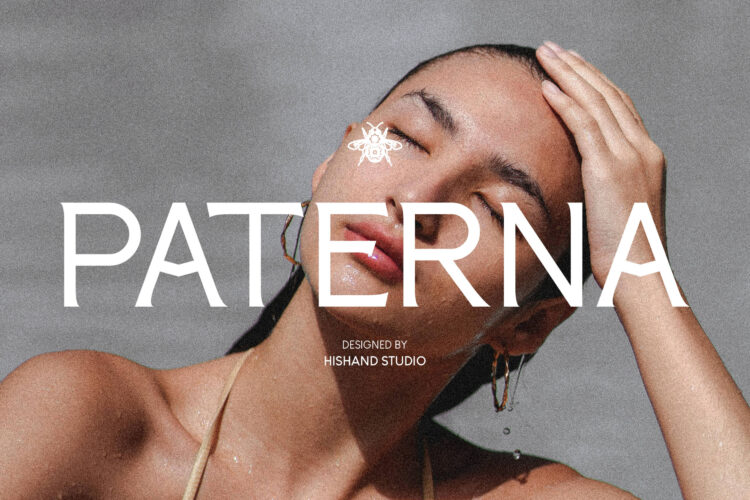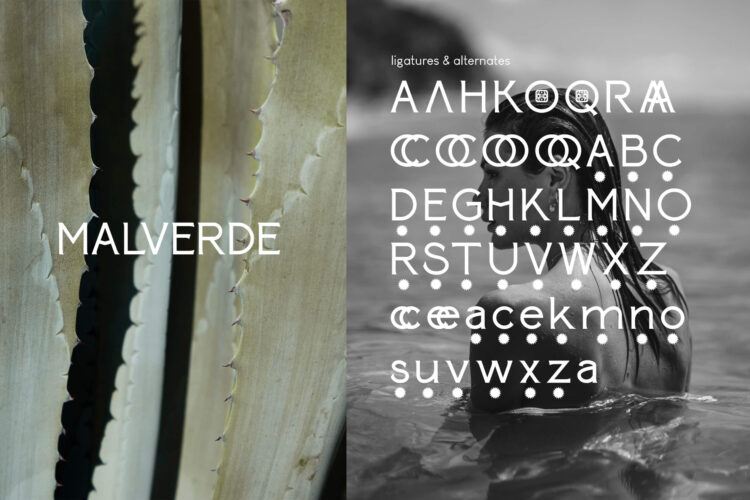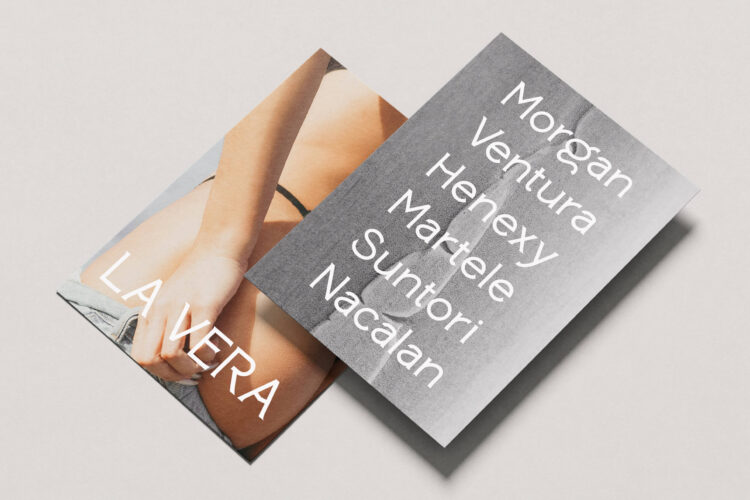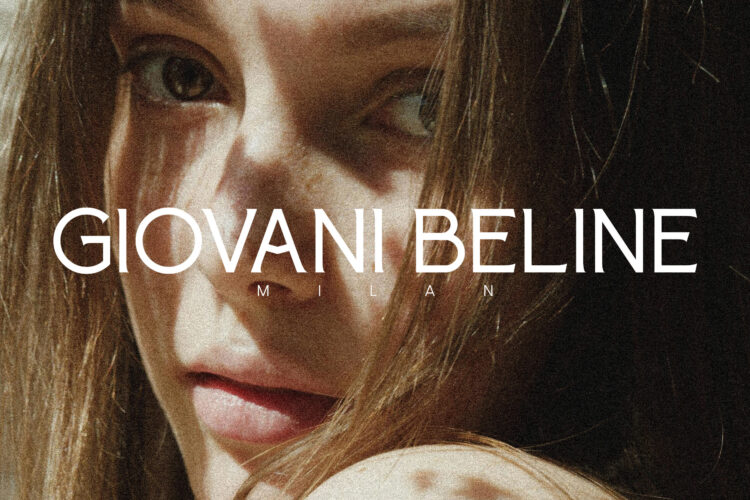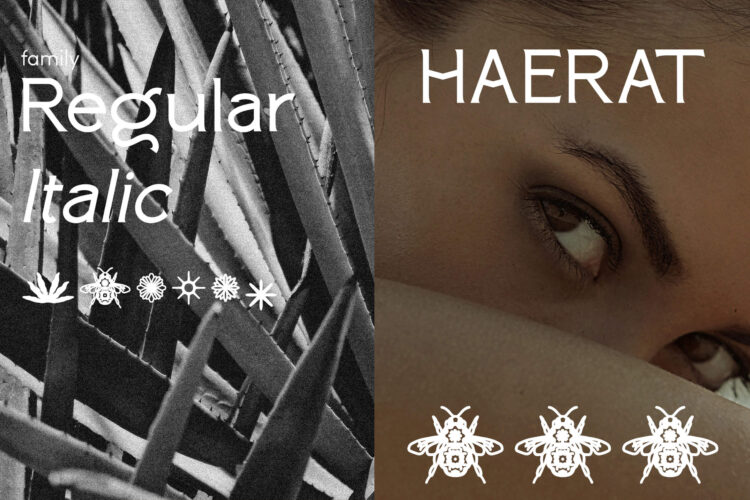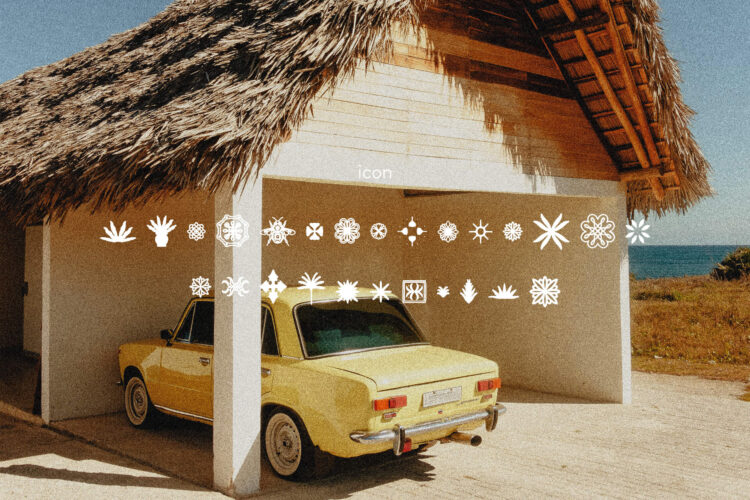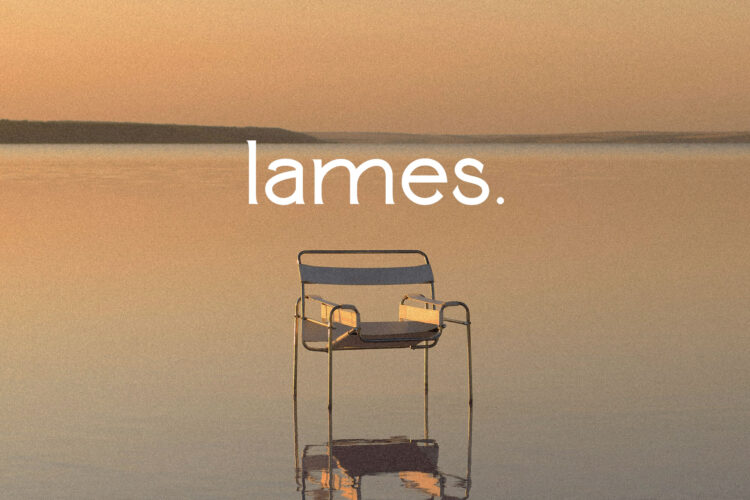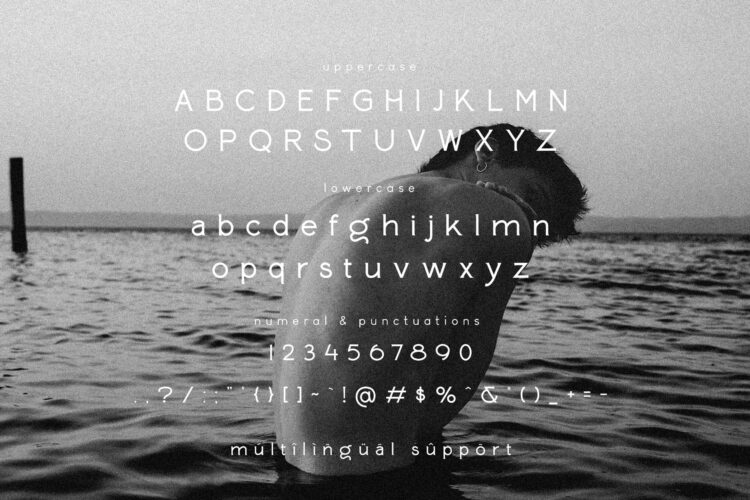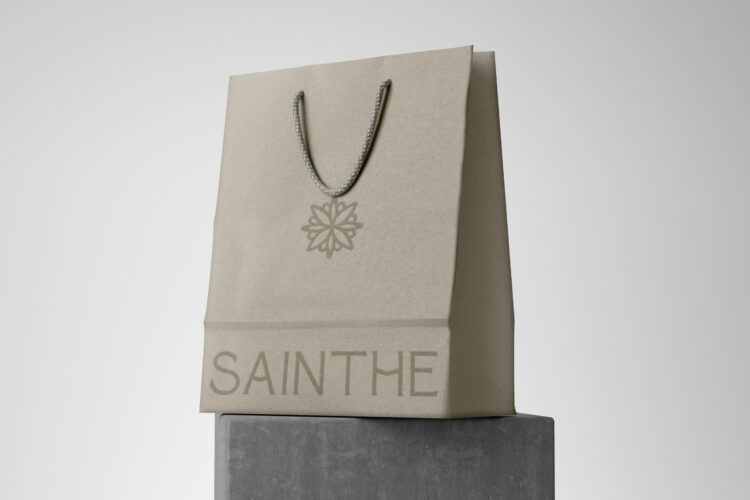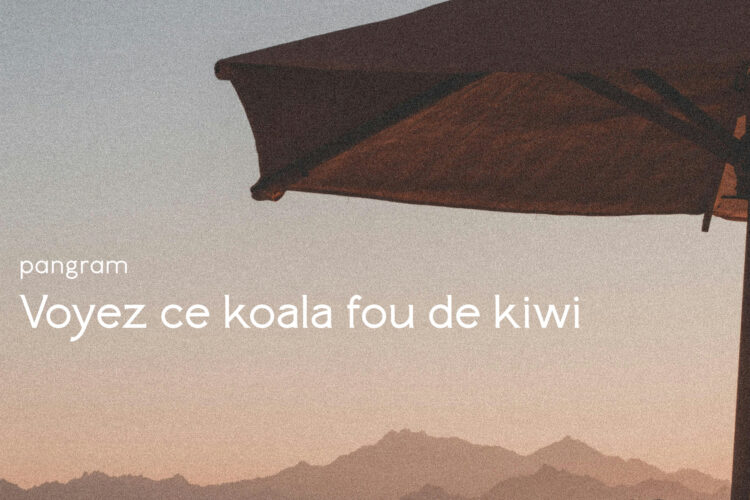
Paterna is a serif display font that exudes effortless elegance and refined sophistication, making it an exceptional choice for designers who want to elevate their visual projects with a luxurious aesthetic. Crafted with meticulous attention to detail, Paterna blends the timeless beauty of classic serif typography with a fresh, modern sensibility. The result is a typeface that feels both traditional and contemporary, rich in character yet clean and polished.
Every letterform in Paterna is thoughtfully shaped to achieve harmony and visual balance. The font features graceful contrasts between thick and thin strokes, smooth contours, and subtly refined serifs that add personality without overwhelming the eye. This combination creates a flowing rhythm throughout the typeface, making each glyph feel intentional and expressive. When used in headlines, titles, or brand identities, Paterna naturally commands attention with a regal, confident presence. Its luxurious look makes it ideal for premium branding, high-fashion campaigns, upscale product packaging, editorial layouts, wedding stationery, and any design project that seeks to communicate elegance and quality.
One of Paterna’s standout qualities is its readability. Despite its decorative sophistication, the font maintains balanced proportions and generous spacing that support clear legibility at various sizes. This ensures that designers can use Paterna not only for bold, eye-catching display text but also for more refined typographic compositions that require clarity and smooth visual flow.
The font comes with a complete set of uppercase and lowercase letters, numerals, punctuation marks, and stylistically consistent details throughout the entire character set. This comprehensive structure allows designers to build cohesive and visually striking typography with ease. Whether you are creating a luxurious brand identity, developing editorial headlines, or designing an elegant digital interface, Paterna adapts beautifully while maintaining its timeless charm.
Overall, Paterna Serif Font is more than just a typeface it is a visual statement of taste, artistry, and refinement. Its combination of beauty, precision, and versatility makes it an invaluable addition to any designer’s font collection.
Complete with
- ligatures
- alternates
- regular
- Italic
- icon
- kerning
- multilingual support